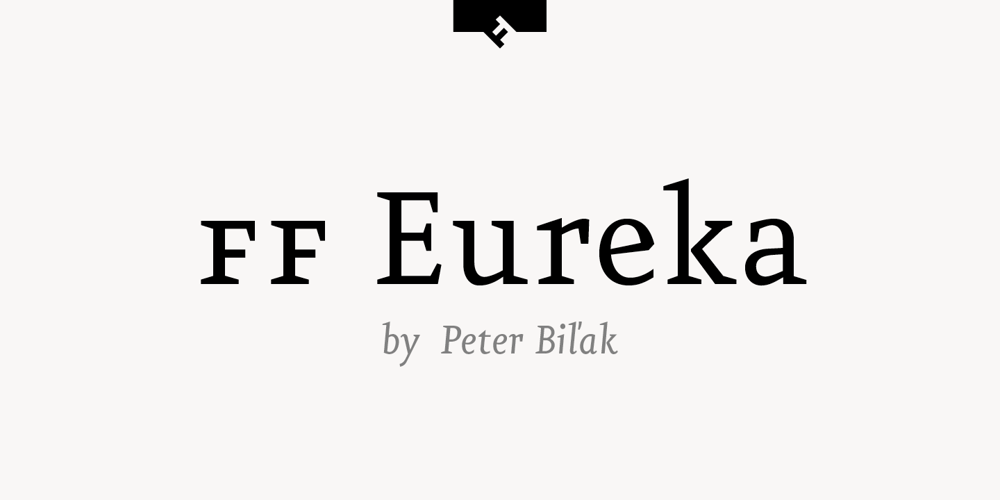
FF Eureka Font Family was designed by Peter Bil’ak and published by FontFont. FF Eureka contains 5 styles and family package options. Slovakian type designer Peter Bil’ak created this serif FontFont in 1998. The family has 5 weights, ranging from Regular to Bold (including italics) and is ideally suited for advertising and packaging, book text, editorial and publishing as well as wayfinding and signage. FF Eureka provides advanced typographical support with features such as ligatures, small capitals, alternate characters, case-sensitive forms, fractions, and super- and subscript characters. It comes with a complete range of figure set options – oldstyle and lining figures, each in tabular and proportional widths. FF Eureka received several awards: the National Slovak Design Centre award in 1997 and the The Best Design in the Category of Type 19th International Biennale of Graphic Design Brno award in 2000. This FontFont is a member of the FF Eureka super family, which also includes FF Eureka Mono and FF Eureka Sans.